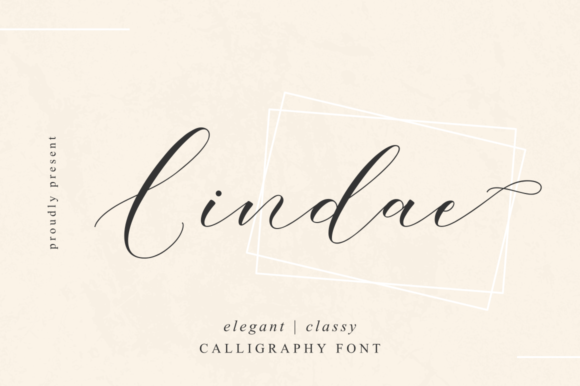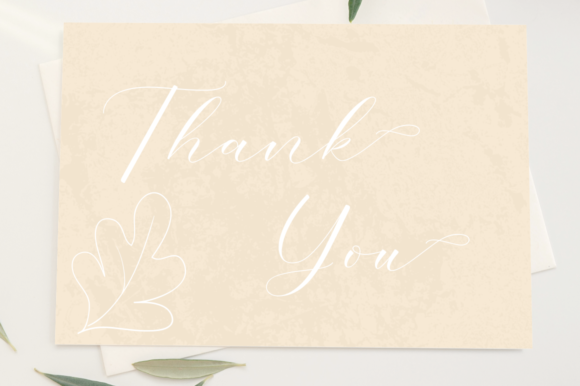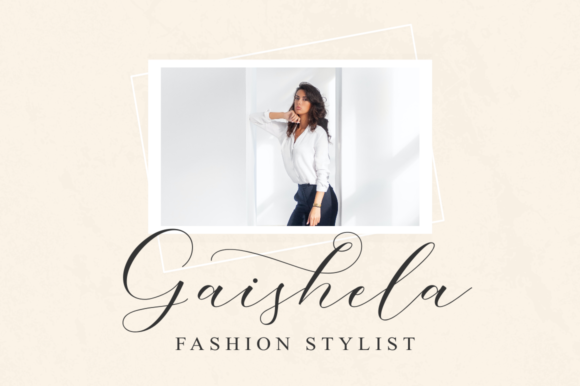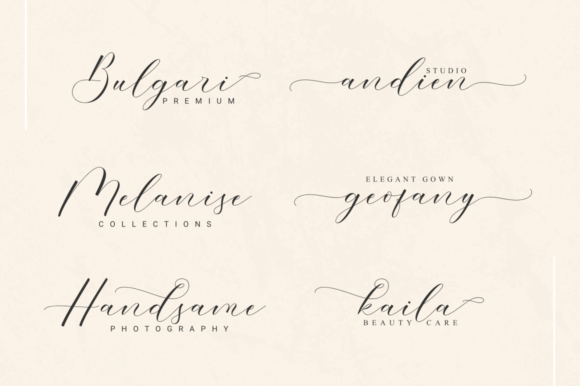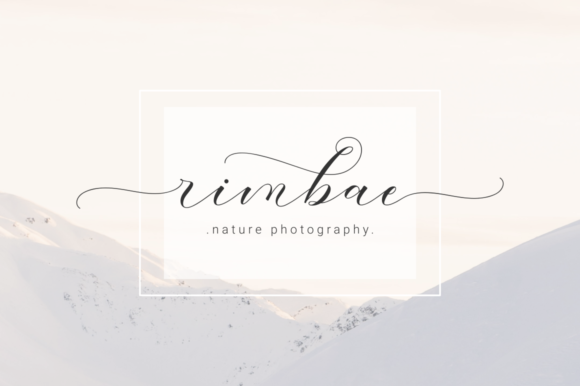
About Lindae Font
Lindae is an exquisite light handwritten font that radiates elegance and uniqueness. Its delicate and airy appearance brings a touch of luxury and sophistication to any design project, making it a perfect choice for creating visually stunning and impactful designs.
With its one-of-a-kind charm, Lindae stands out among traditional typefaces, giving your creations a distinct and eye-catching quality. Whether used for logos, branding, invitations, packaging, or social media graphics, Lindae’s stunning impact will elevate your projects and leave a lasting impression on your audience.
The font’s versatility allows it to shine in various design applications. In branding and logo design, Lindae adds a sense of refinement and modernity, making your brand stand out with elegance and style. Its handwritten allure exudes authenticity and personal connection, establishing a strong visual identity for your business.
When used in invitations and stationery, Lindae’s light and graceful letters create a romantic and refined look. Wedding invitations, thank-you cards, and other special event stationery come to life with Lindae’s luxury spark, setting the tone for a memorable and beautiful occasion.
In digital media and social media posts, Lindae’s unique feel adds an artistic touch. Whether used for quotes, promotional posts, or creative visuals, the font’s stunning impact enhances the overall aesthetics, making your content more engaging and appealing to your audience.
The PUA encoding of Lindae is a valuable feature, allowing easy access to all of the amazing glyphs and ligatures. This opens up a world of possibilities for creative expression, enabling you to experiment with different letterforms and decorative elements to create truly unique and personalized designs.
In conclusion, Lindae is a beautiful light handwritten font with a stunning impact and a luxury spark. Its unique feel and PUA encoding make it a versatile and powerful tool for creating memorable and visually striking designs across a wide range of projects. Embrace the elegance and sophistication of Lindae to elevate your design creations and captivate your audience with its beauty and charm.